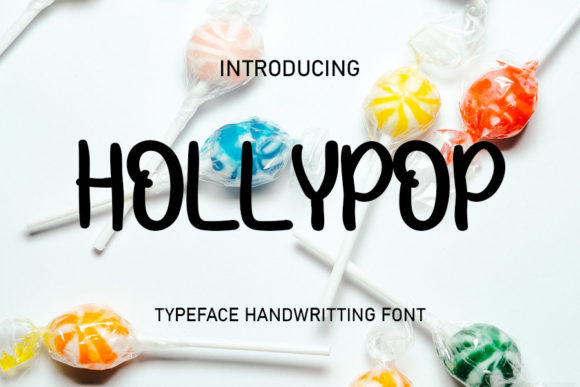
Look no further than 'Hollypop', a font that conjures up images of sugar plum fairies and Christmas spirit. The strokes of 'Hollypop' are like candy canes, adding a touch of sweetness to every design.
'Hollypop' is like a playful elf, dancing across your designs, bringing joy and wonder wherever it goes. This font adds a sprinkle of charm to everything from birthday cards to business flyers, making each creation come alive.
'Hollypop' is a font that sets the scene for festive cheer. It's like a warm cup of cocoa on a snowy day, evoking a sense of nostalgia and joy. Its soft curves remind of sugar cookies, adding a touch of sweetness to every design.
'Hollypop' is a font that makes your designs dance. It's like a twinkling Christmas light, brightening up your creations and capturing hearts. It's perfect for adding a personal touch to your projects, making them unique and memorable.